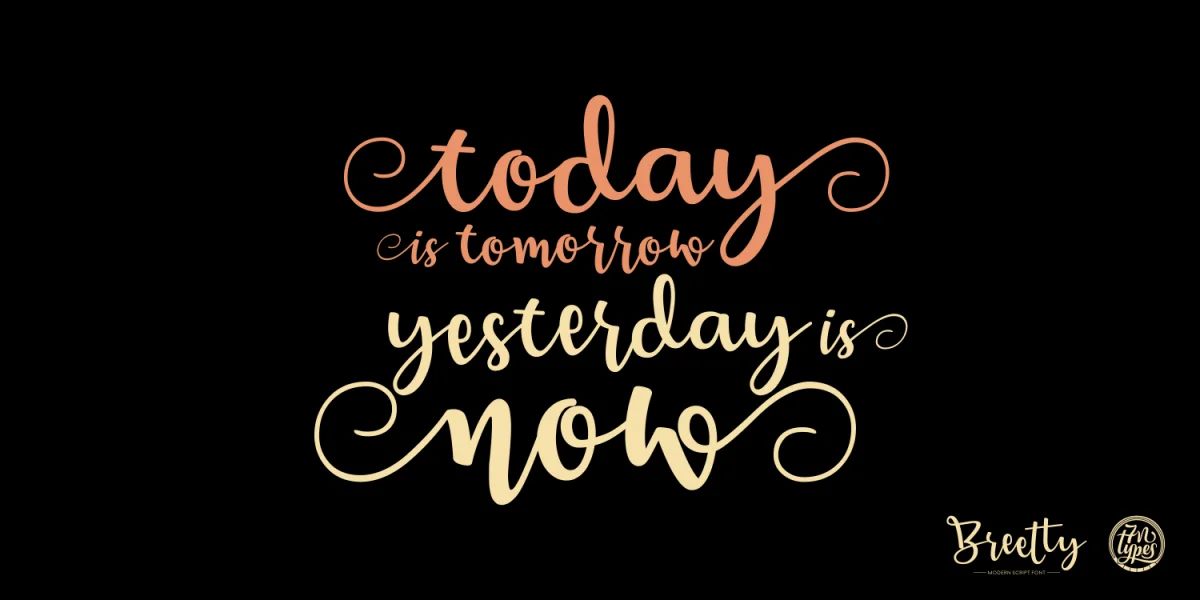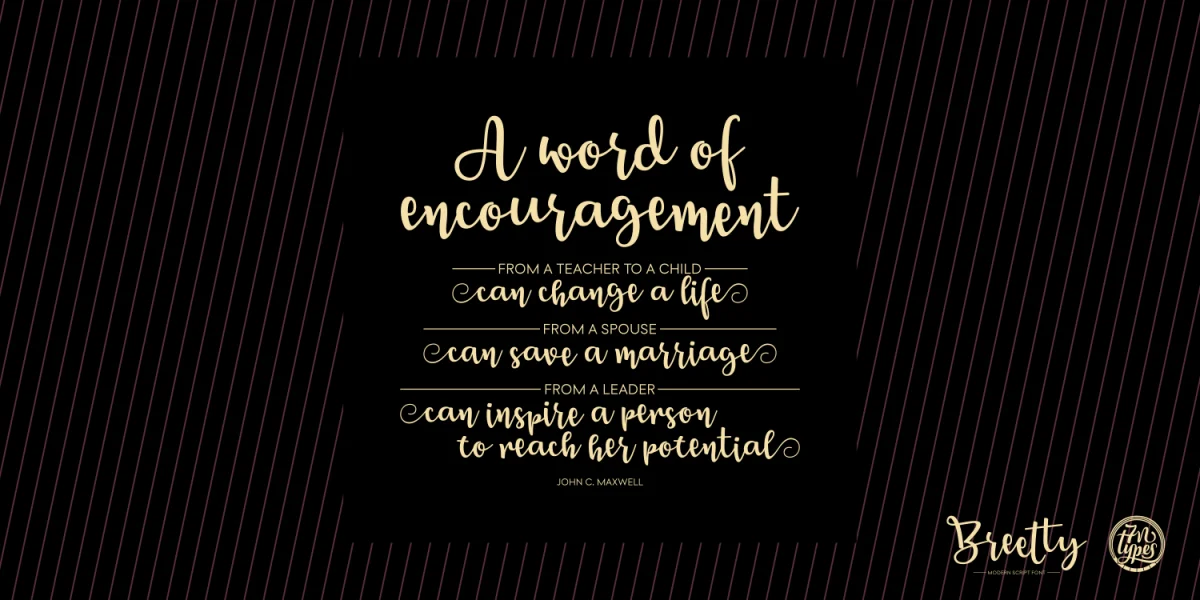
Brertty Font is created by Situjuh Nazara ()
Breetty is a fun, playful script font created by Situjuh Nazara. The Breetty font, that comes in 2 variations, offers an extensive range of glyphs and characters with (PUA encoded) swashes. This makes Breetty a versatile type that can be used in many different projects that require a personal touch.